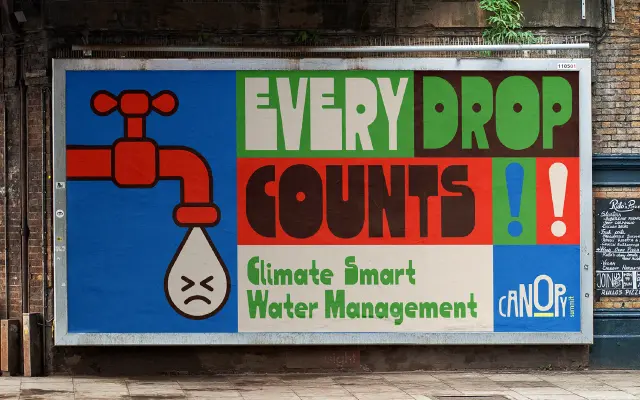
Zanco Variable Font
In-House Intl · Alexander Wright
A narrow variable display typeface with stressed curves and unconventional weight distribution, designed by Alexander Wright at In-House Intl.
Designed by Alexander Wright and developed by Rodrigo Fuenzalida, Zanco runs from a slim, ethereal cut to a heavy-footed version where thickening shadows fill in the lower halves of letterforms, producing a melty, nostalgic quality. Its proportions are named after zancos, the stilts worn by acrobats, and the elongated, narrow stance lends it an art nouveau flavour at lighter weights. The variable axis makes it well suited to brand identities, packaging and poster work where a single font needs to carry across a range of sizes and moods.
A narrow, expressive display typeface with stressed curves, unconventional weight distribution and art nouveau inflections; the variable axis and stilt-like proportions place it firmly in the display category rather than any conventional text classification.